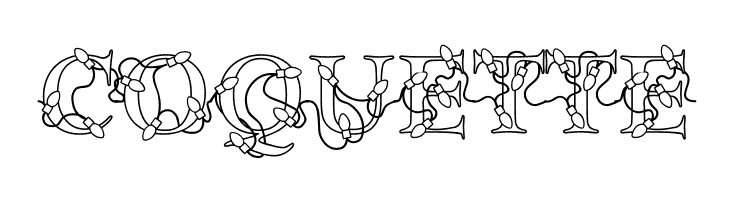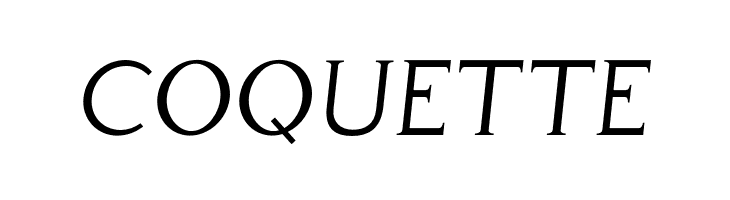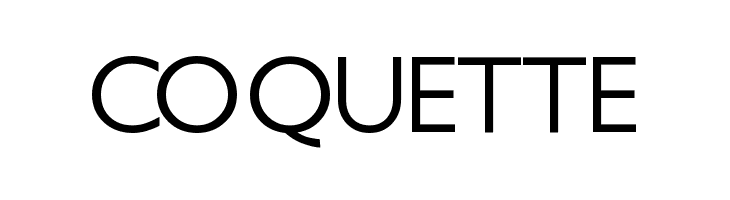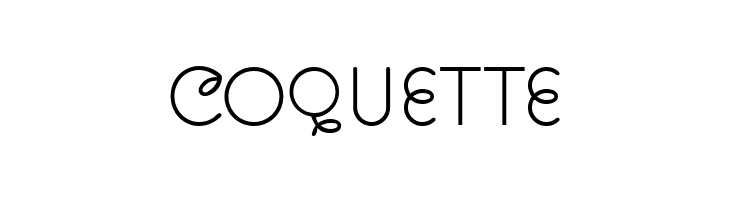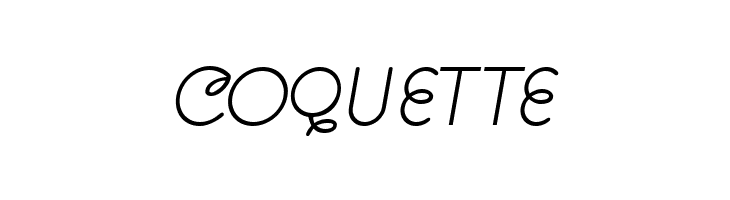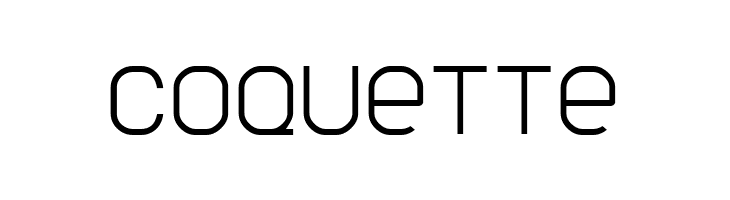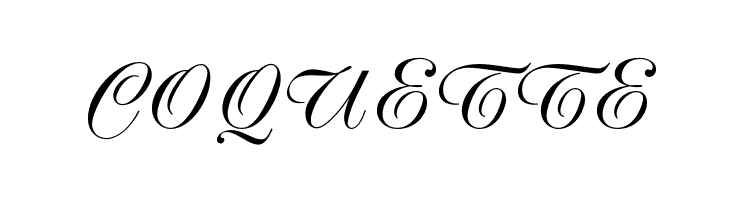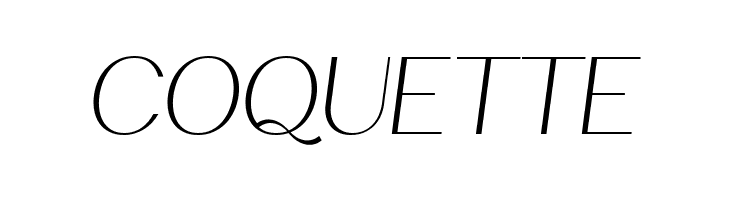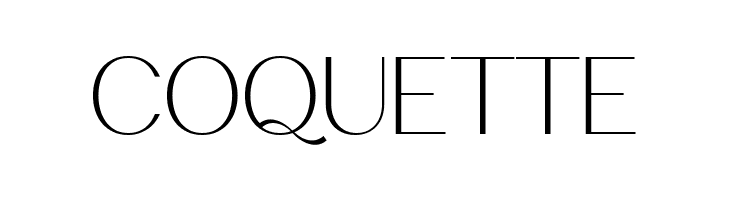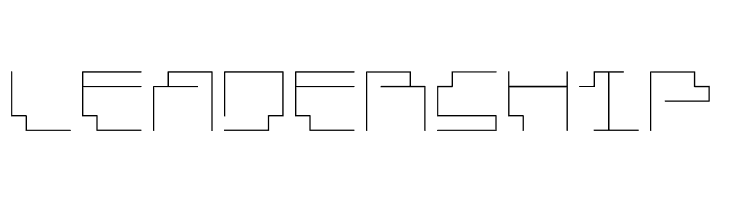
A 3D geometric font with a modern, playful design.
A geometric, minimalist font with a wireframe design and uniform line weight.
A geometric, cube-like font with a futuristic and digital aesthetic.
A clean, modern monospaced font with uniform character widths and low contrast.
A futuristic, circuit-inspired font with intricate linework and electronic motifs.
A clean, modern sans-serif font with geometric letterforms and uniform stroke width.
A sleek, modern light italic font with smooth, dynamic strokes.
A modern, light sans-serif font with clean lines and elegant proportions.
A sleek, modern, and light italic font with a minimalist aesthetic.
A modern, light sans-serif font with clean lines and a minimalist design.
A bold, decorative font with a 3D effect and italicized style.
A bold, decorative font with a modern, three-dimensional style.
A playful, modern font with rounded edges and consistent stroke width.
A modern, light sans-serif font with a clean and minimalistic design.
A sleek, light, and oblique font with a modern and elegant style.
An elegant script font with graceful curves and delicate strokes.
A modern, sleek font with elongated, narrow characters and a sophisticated style.
A modern, dotted font with a playful and creative style.
A modern, light sans-serif font with excellent readability and uniform design.
A modern, light, italic sans-serif font with smooth strokes and normal spacing.
A futuristic, geometric font with clean lines and a modern aesthetic.
A bold, geometric font with a futuristic and modern design.
A refined, light italic serif font with a modern and elegant style.
A refined and elegant font with clean lines and balanced proportions.
A geometric, angular font with a modern and abstract style.